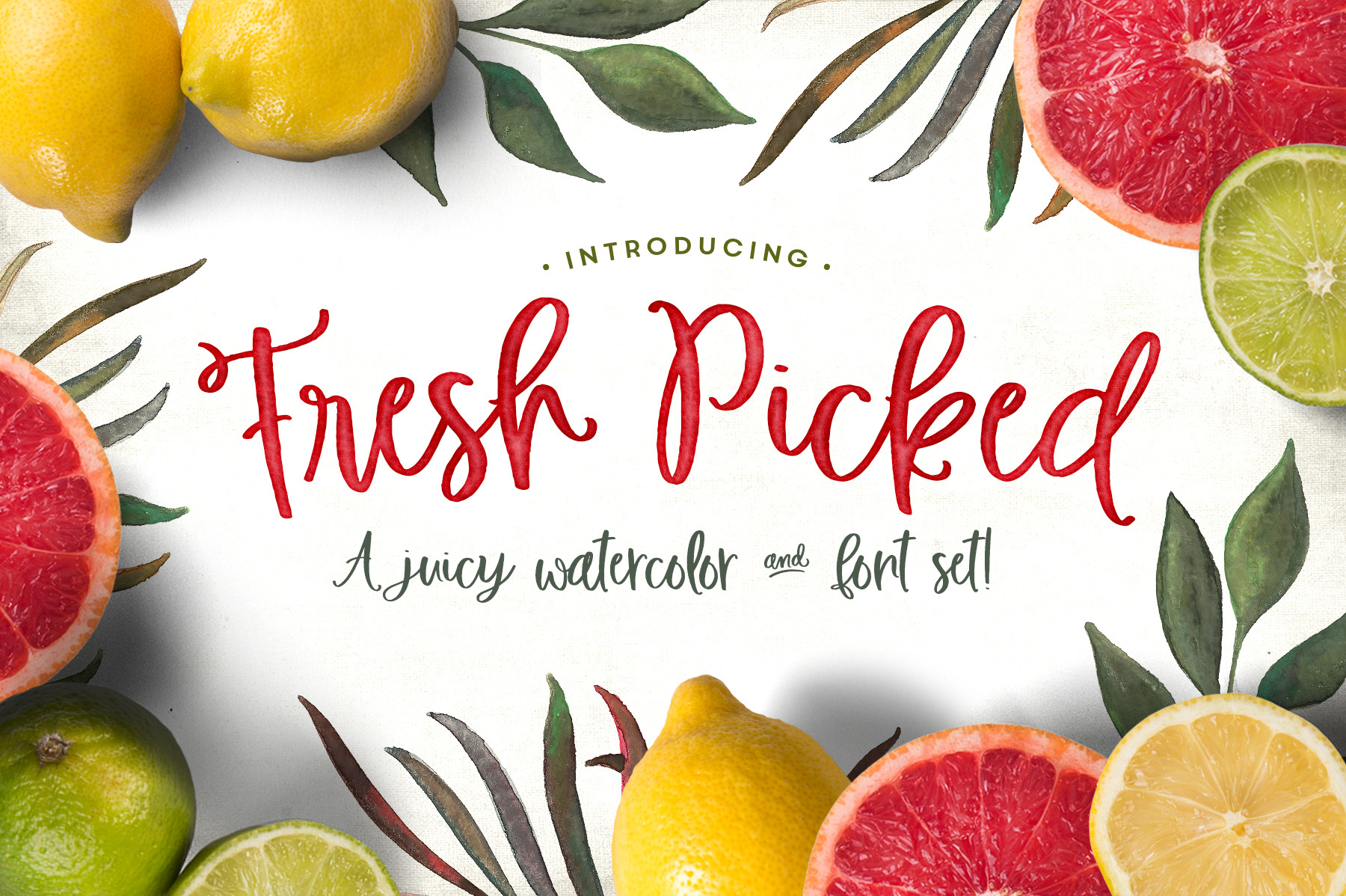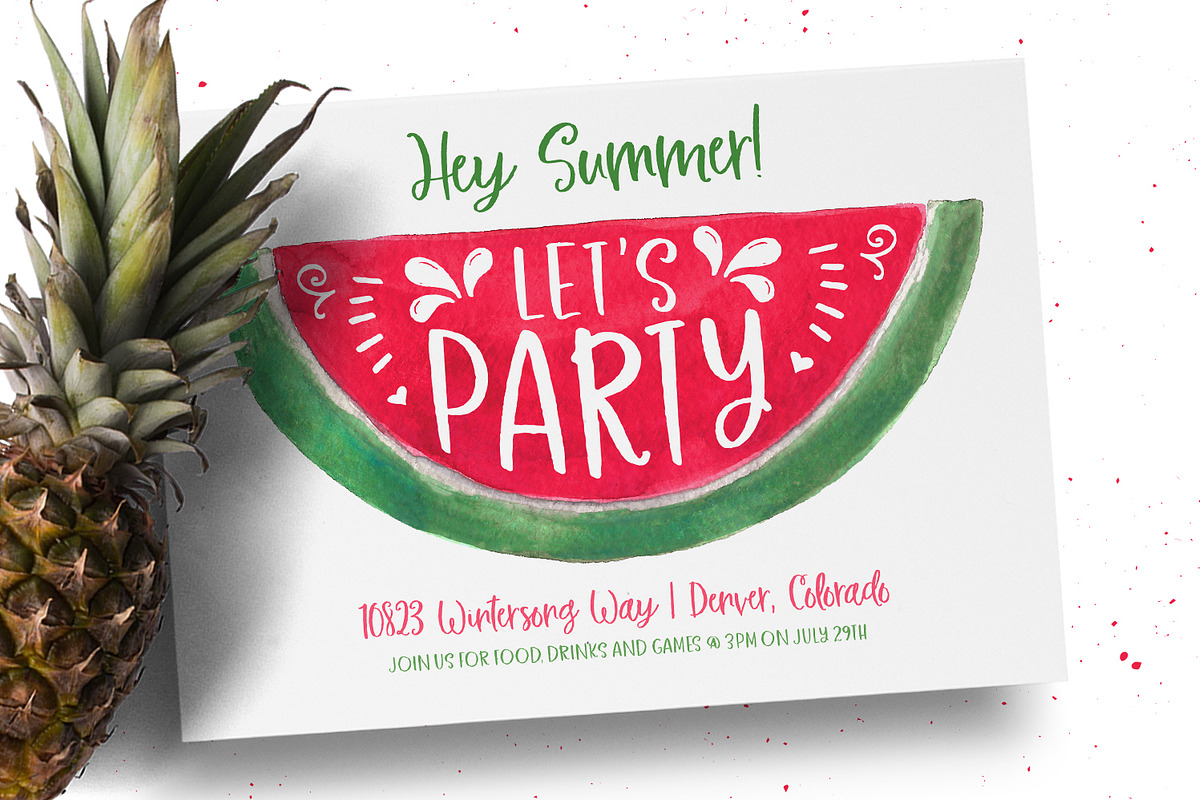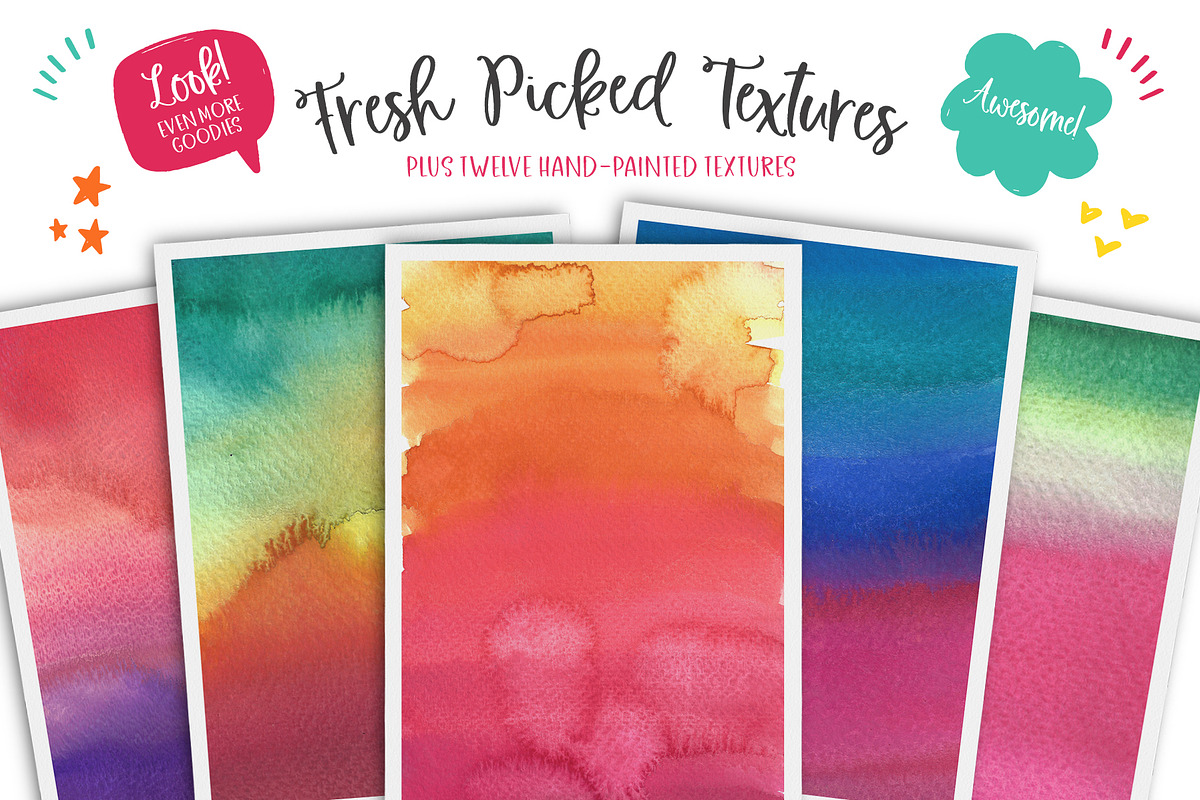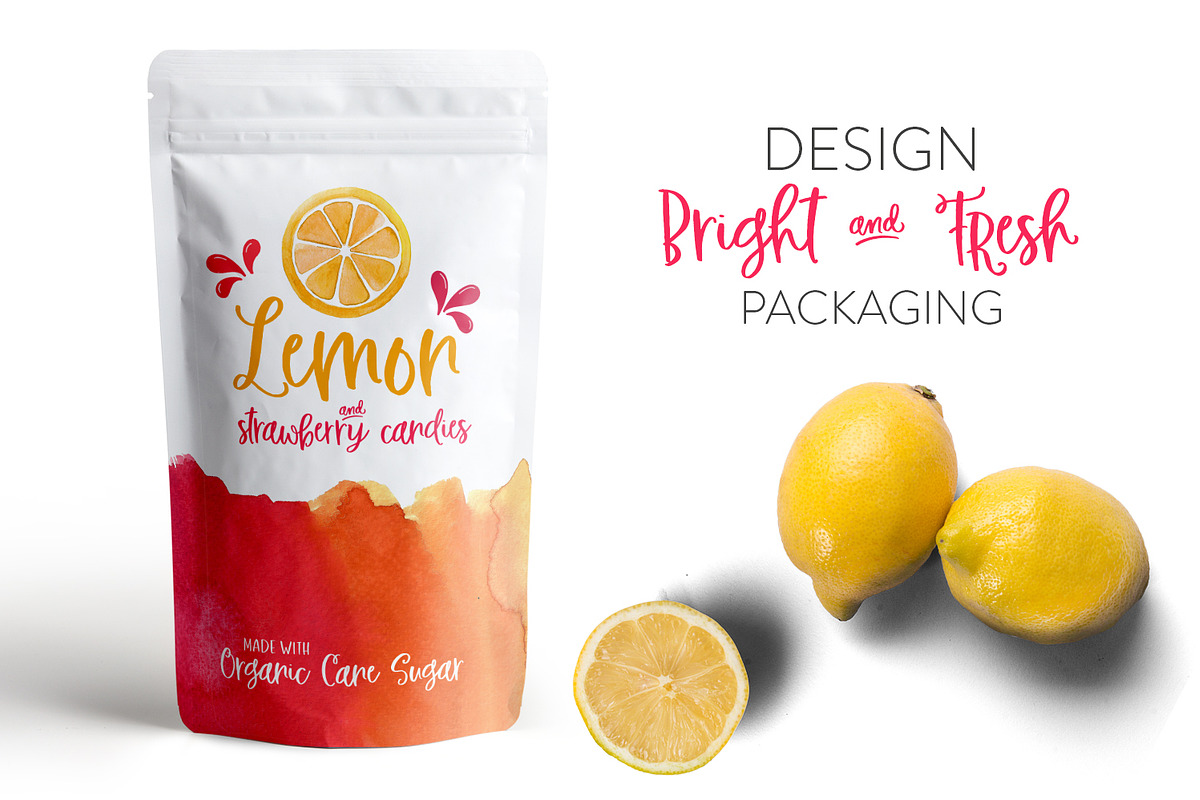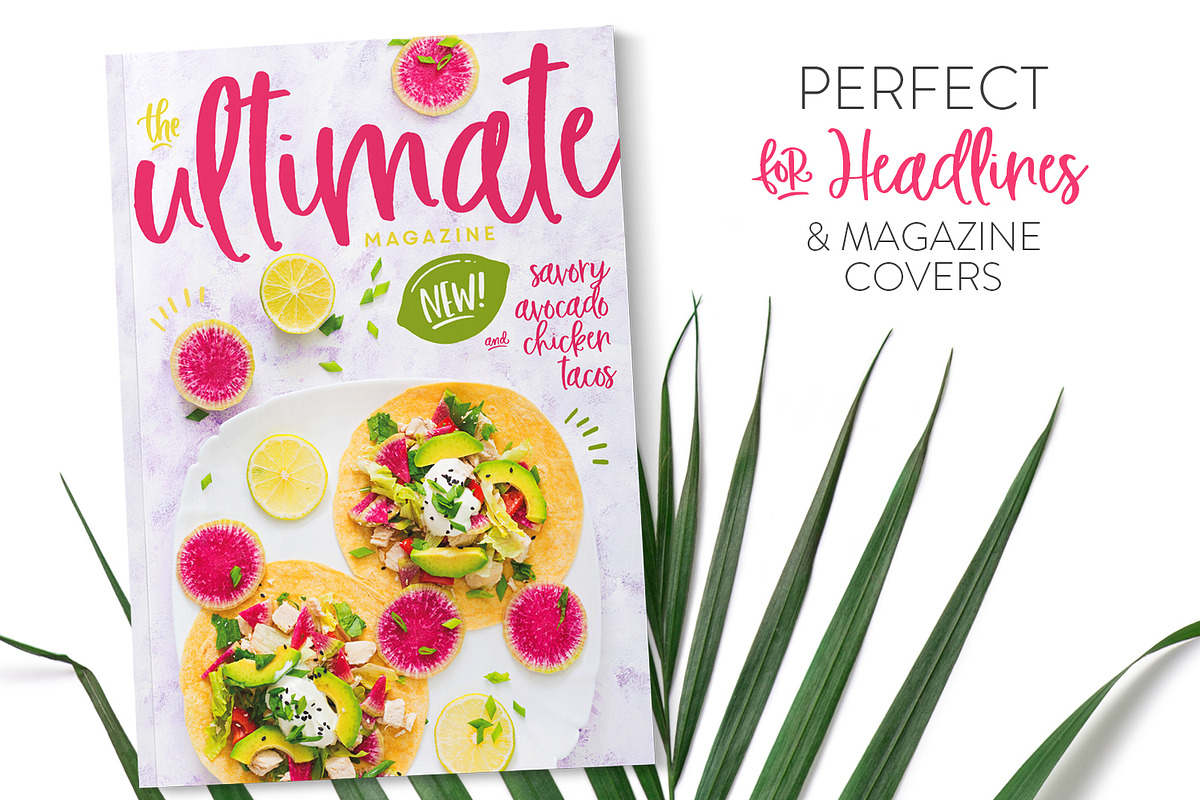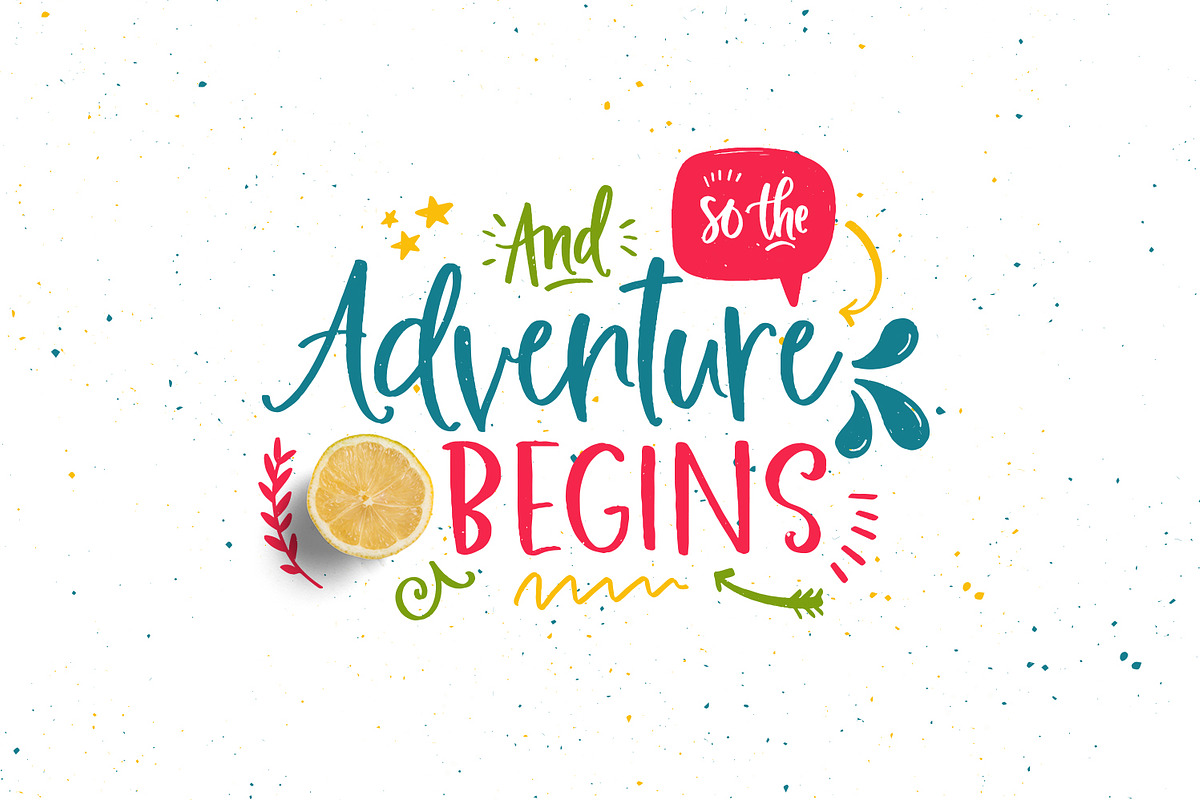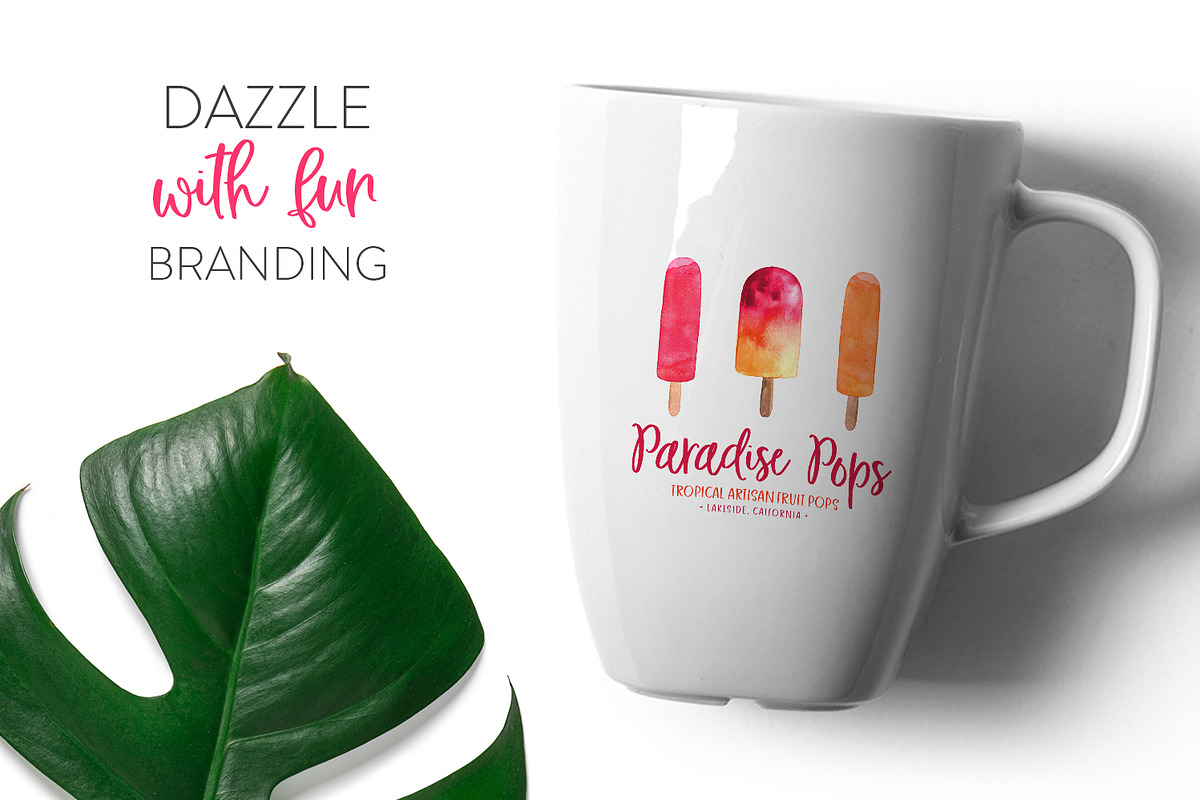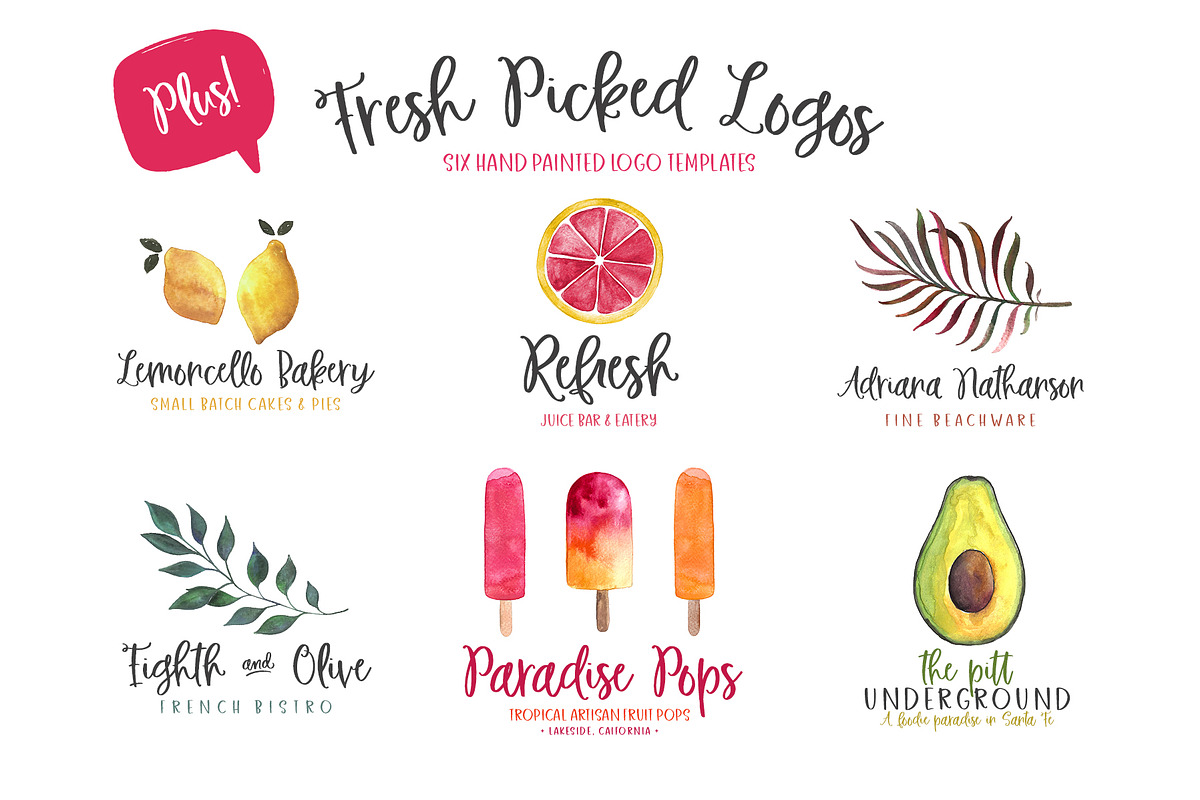
Fresh Picked Watercolor & Font Kit
Need something bright and sweet for the summer? ๐๐๐
Then dive into the Fresh Picked Watercolor & Font Kit! This baby is packed with over 55 hand-painted watercolors, three new fonts, including a digbat font with loads of hand-drawn extras, 6 ready-made logos and a set of brand new watercolor textures! Everything was designed to work together, so this is your one-stop-shop for Fresh Picked design kit!
ALL THE GOODS:
- Fresh Picked Script (Regular) - A casual, hand-drawn script font, perfect for invitations, lettering projects, packaging and logos.
- Fresh Picked Script (Bold) - Just like regular, but you know, bold. :)
- Fresh Picked Sans - A complimentary sans serif version that perfectly pairs with FP Script.
- Fresh Picked Extras - A font file containing more than 85 hand-drawn doodles, ornaments and catchwords.